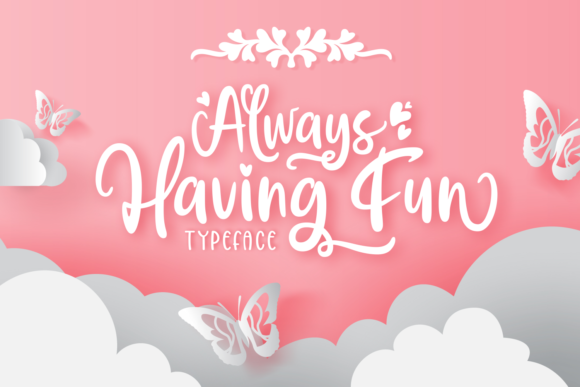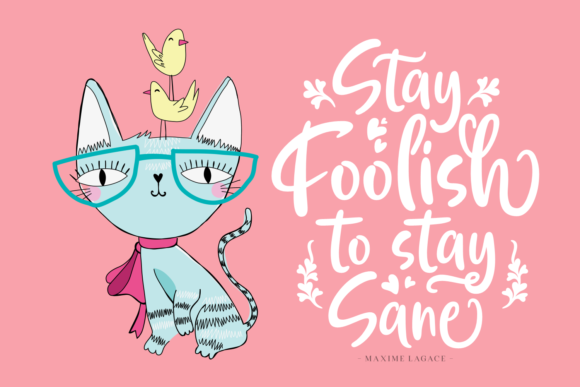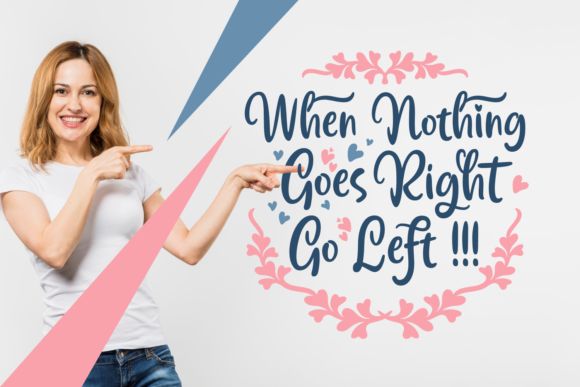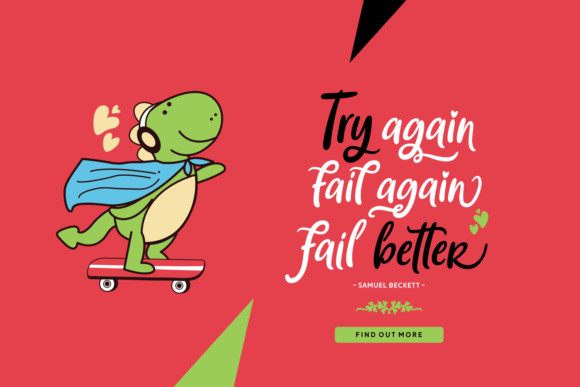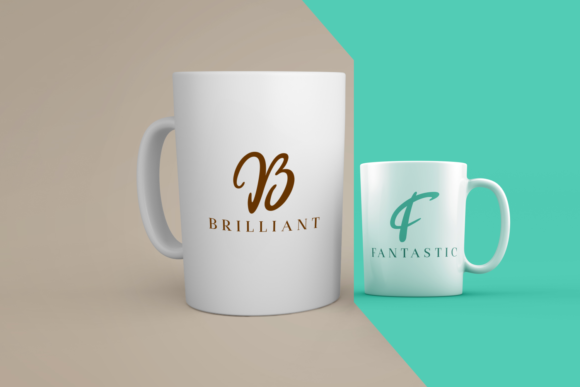
Always Having Fun Font
Always Having Fun is an equally elegant and playful handwritten font. Full of energy, it will add a childlike charm to any design project.